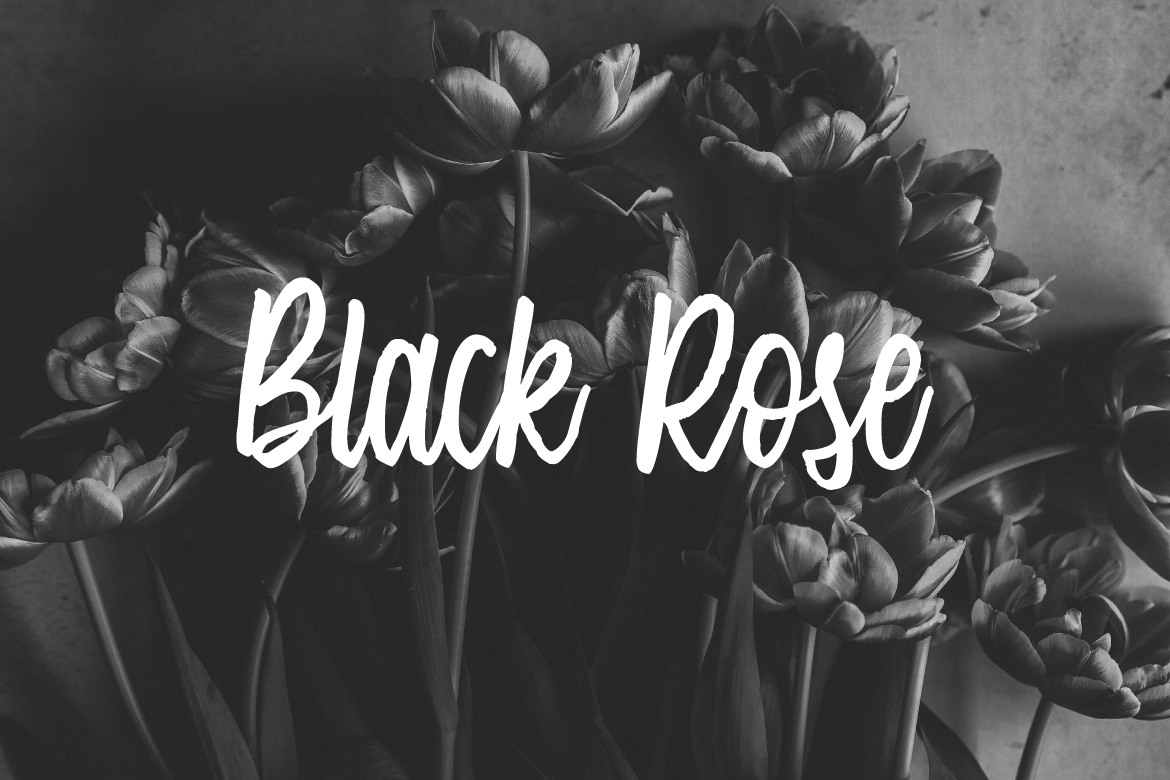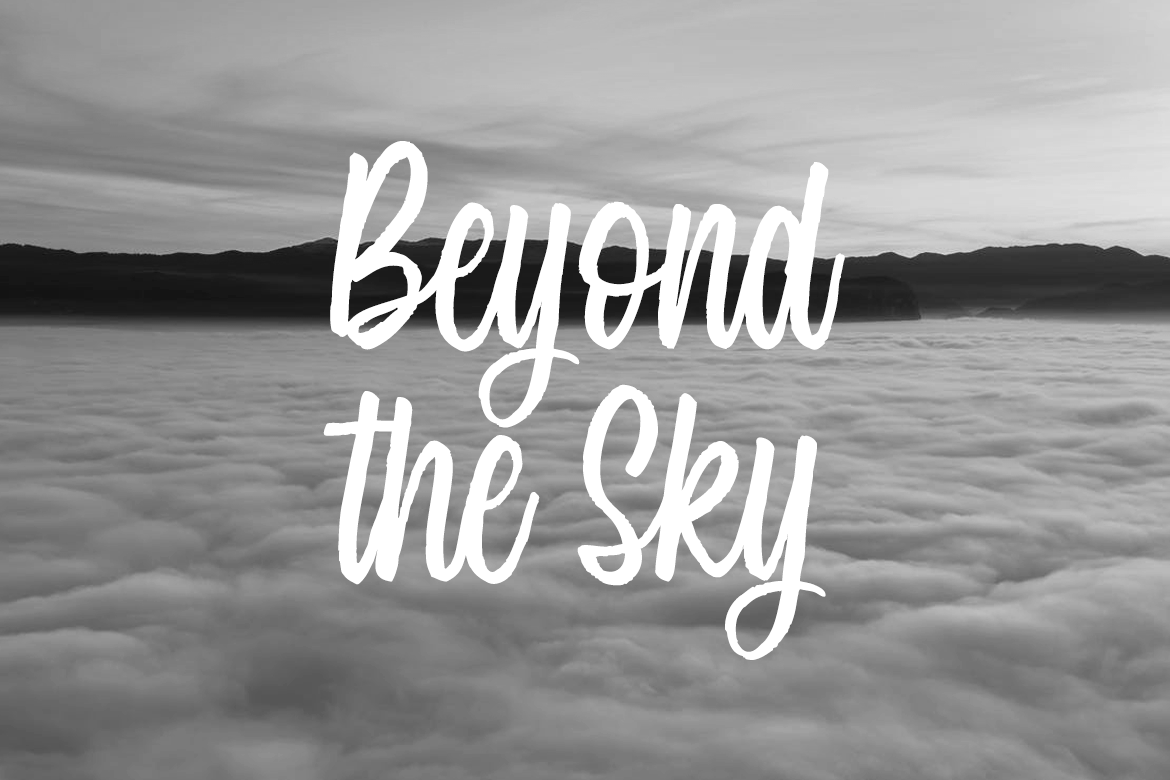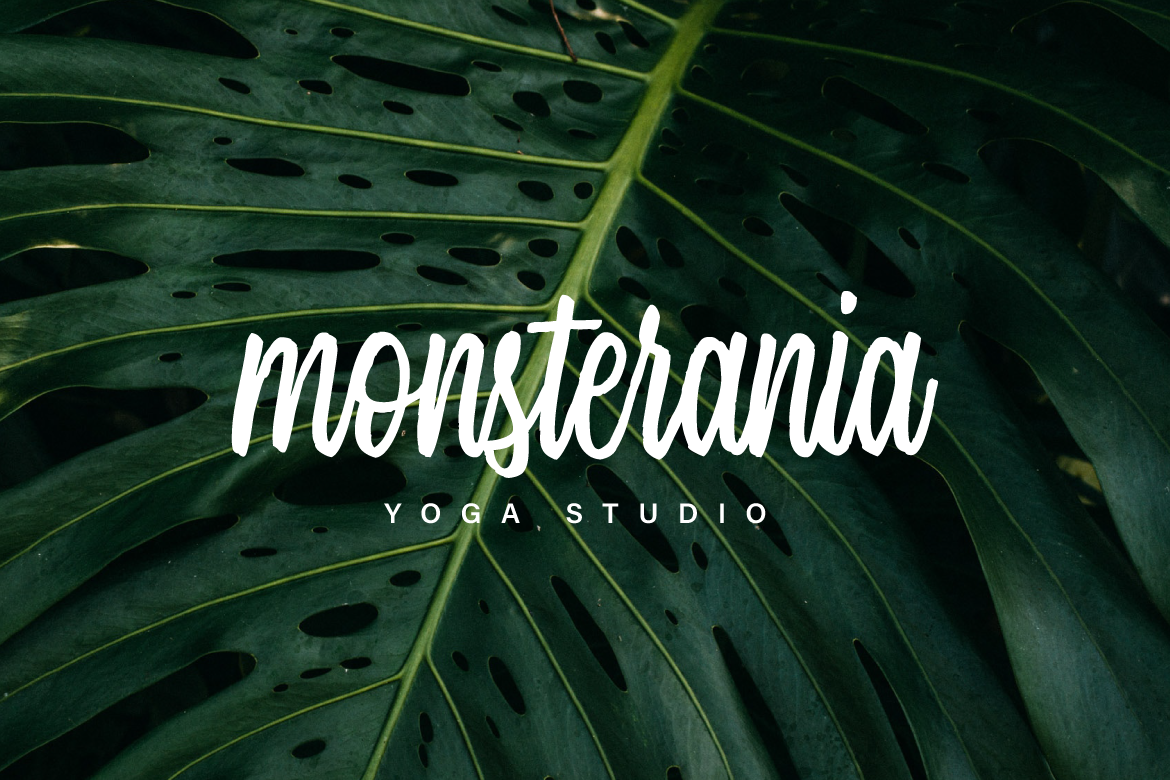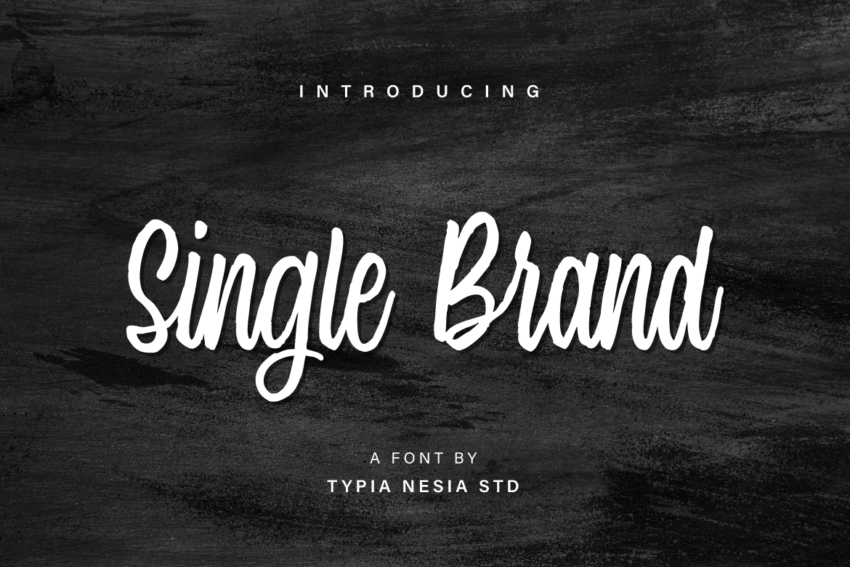
Introduction to Single Brand Font
Single Brand is a quirky hand-lettered font; this script is ideal for adding a unique vibe to your designs, given its textured edges and handwritten appeal.
Key Features of Single Brand Font
Why Choose Single Brand Font?
Single Brand Font offers exceptional quality and versatility, making it a valuable addition to your design toolkit. Whether you’re creating for personal projects or commercial use, Single Brand Font delivers professional results.